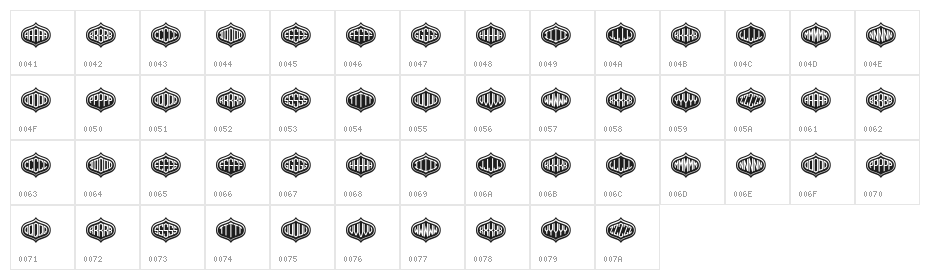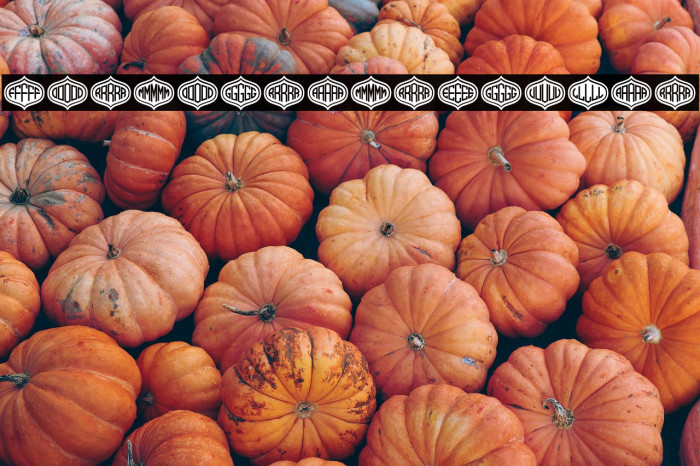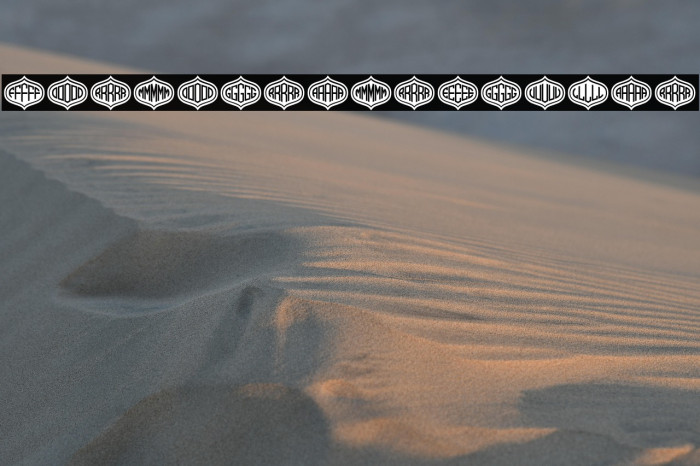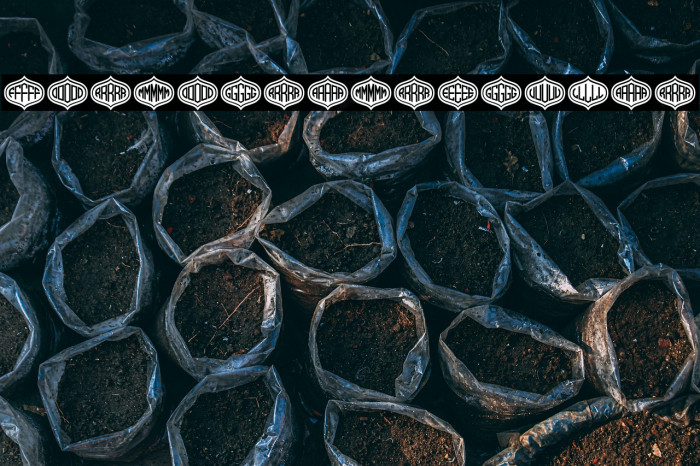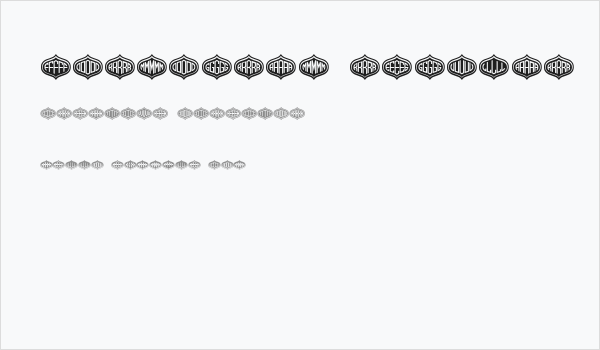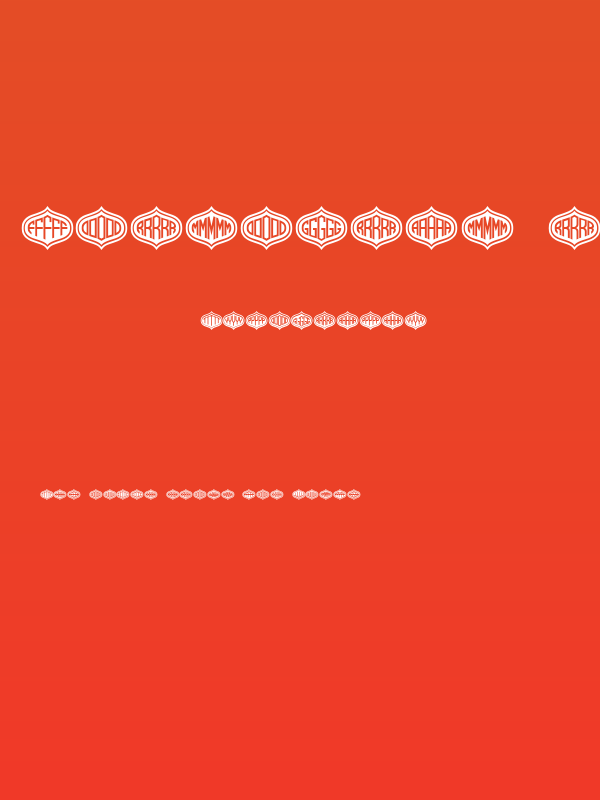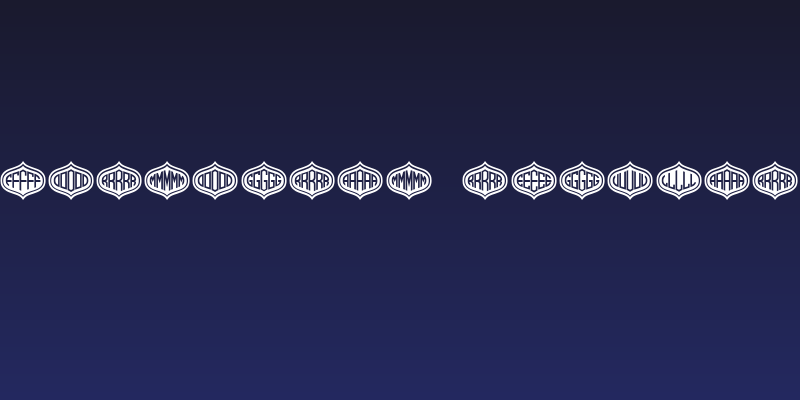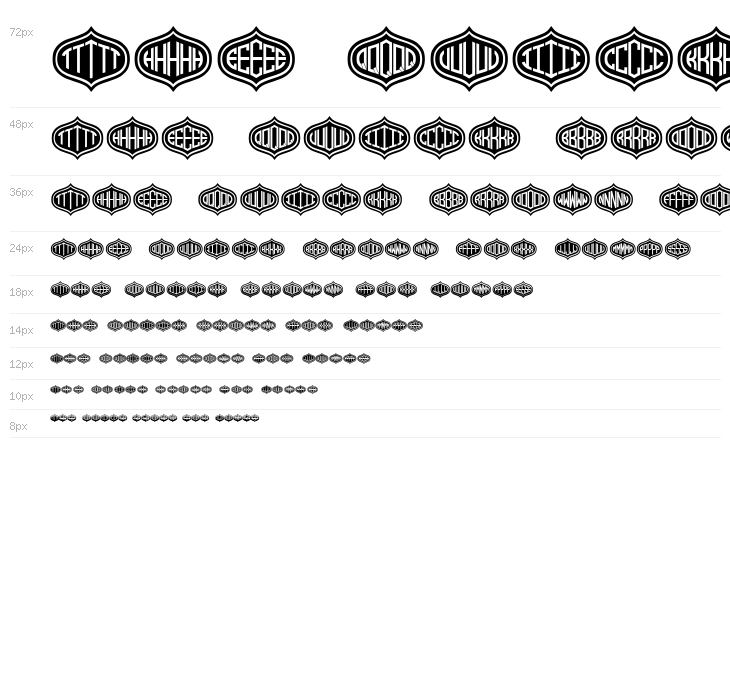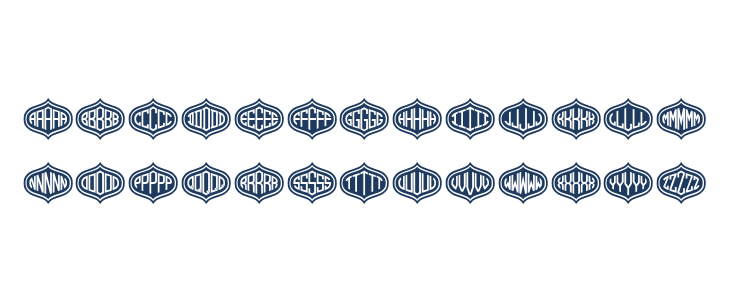
Formogram Regular Font
Formogram Regular Description
This font features a unique and decorative style, with each character enclosed in a shield-like shape. The letters are bold and geometric, with a strong presence that makes them stand out. The design is consistent across both uppercase and lowercase letters, as well as numbers and special characters. The enclosed design gives it a structured and formal appearance, while the bold lines add a modern touch. This font is ideal for projects that require a strong visual impact and a distinctive look.
Proposed ProjectsIdeal for logos, branding, posters, and any design requiring a strong visual impact.